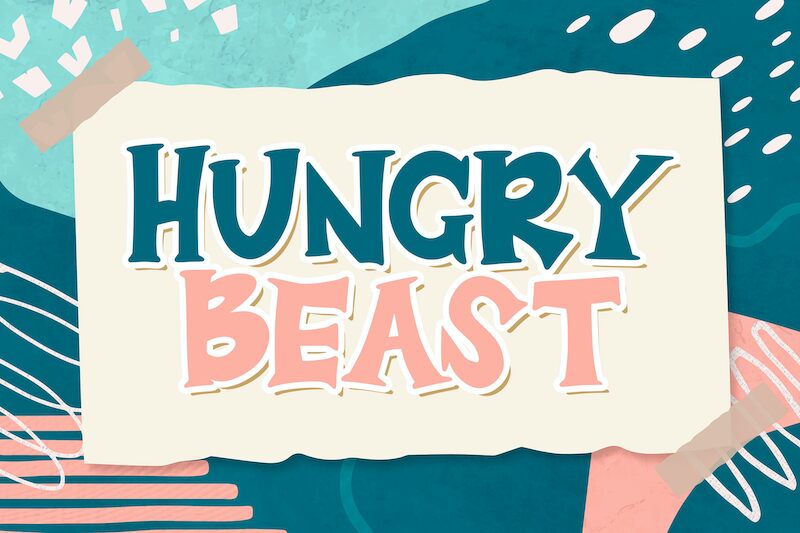
Hungry Beast
Introducing Hungry Beast, a bold and cartoonish display font by Virgiawan Listanto. Perfect for adding a playful touch to logos, t-shirt designs, children's books, magazines and more!